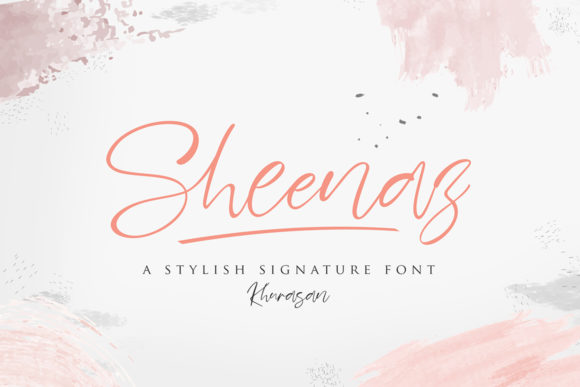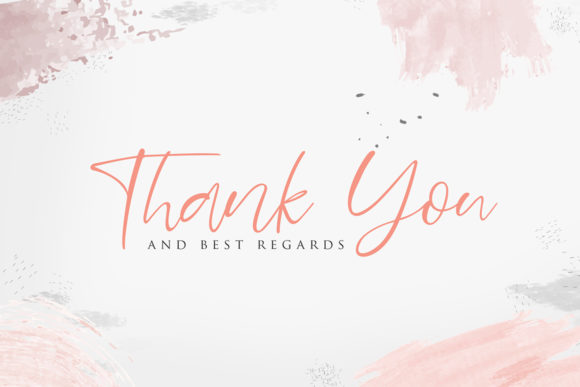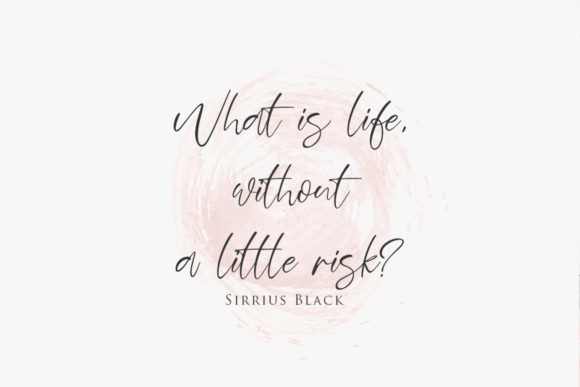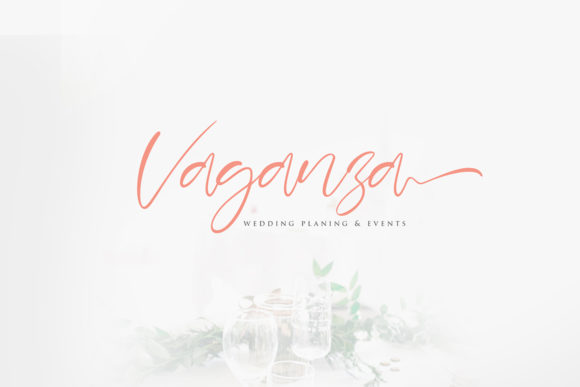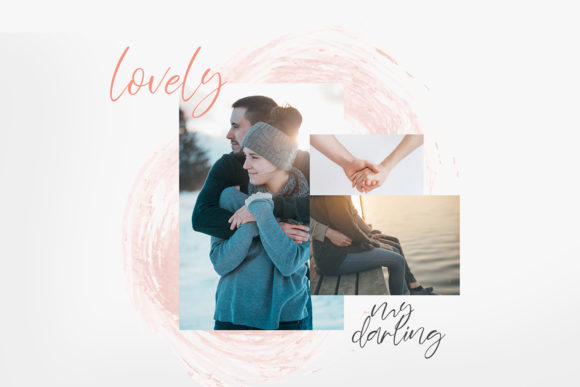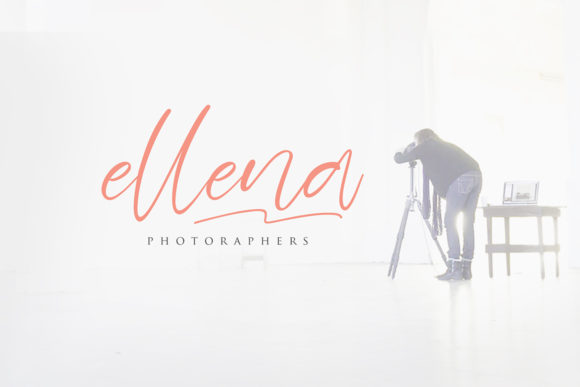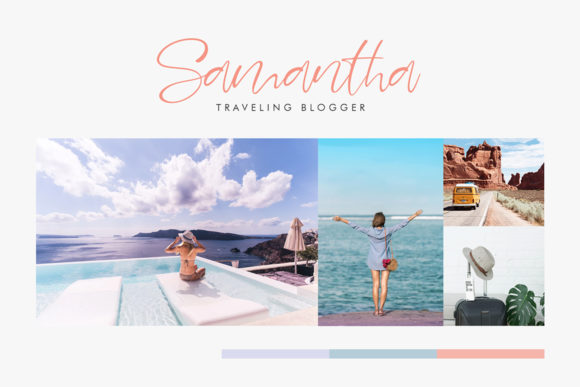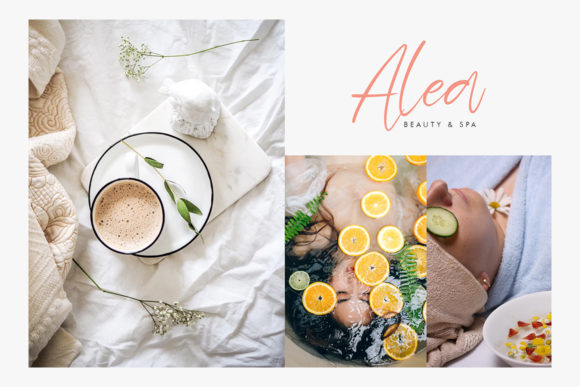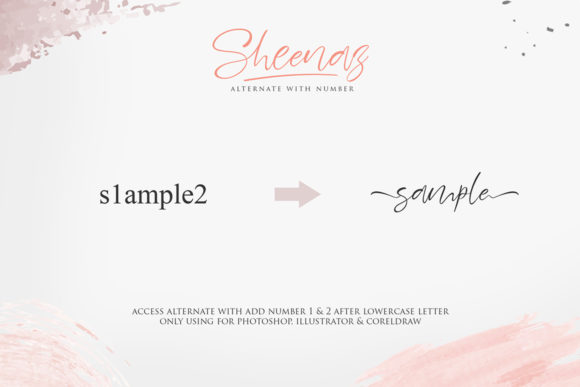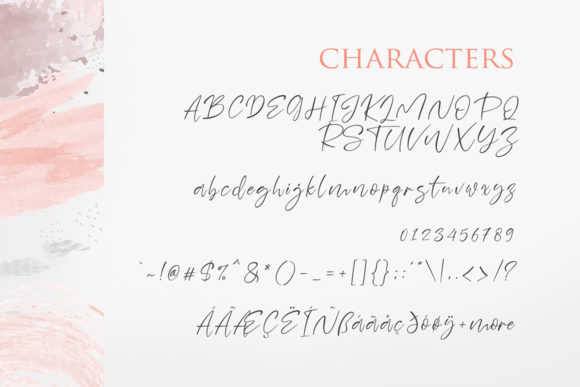
HomeScript FontsSheenaz Font Script Fonts Sheenaz Font FacebookXPinterestWhatsApp Sheenaz Font Poster 2 Sheenaz Font Poster 3 Sheenaz Font Poster 4 Sheenaz Font Poster 5 Sheenaz Font Poster 6 Sheenaz Font Poster 7 Sheenaz Font Poster 8 Sheenaz Font Poster 9 Sheenaz Font Poster 10 About Sheenaz Font Sheenaz is a beautiful and light handwritten font with a casual feel. Get inspired by its contemporary charm. DOWNLOAD ON CREATIVE FABRICAThis font is sold and delivered by Creative Fabrica. Font Canyon may earn a commission if you buy through this link. People also explored Pavillon Font Manson Monogram Font Qilla Font Roshida Font Your Everything Font Desintona Script Font Kiysoom Font Authenticity Font Story Telling Font 290 0 TagsSheenaz Font Previous articleBaligraphy FontNext articleRosalinda Trio Font LEAVE A REPLY Cancel reply Comment: Please enter your comment! Name:* Please enter your name here Email:* You have entered an incorrect email address! Please enter your email address here Website: Save my name, email, and website in this browser for the next time I comment. Personal Use Free Abuget Free Script Personal Use Free Read more about this font Oaklevin Personal Use Free Read more about this font Concrete Wall Personal Use Free Read more about this font Konexio Personal Use Free Read more about this font BLOG To increase your work productivity, choose the most readable fonts. In today's fast-paced work environment, where digital communication and information consumption are integral to our daily routines, the choice of fonts can significantly impact... Best Fonts for T-Shirt Design – Top 2025 Picks Using Fonts in Digital Marketing: Tips to Strengthen Your Brand Identity Exploring Font Trends